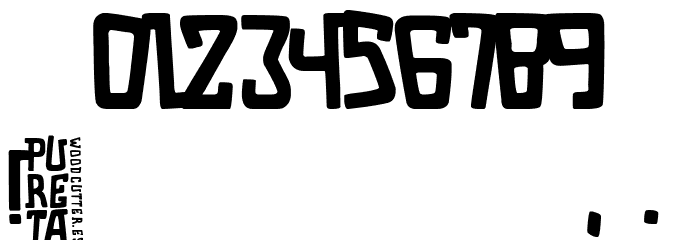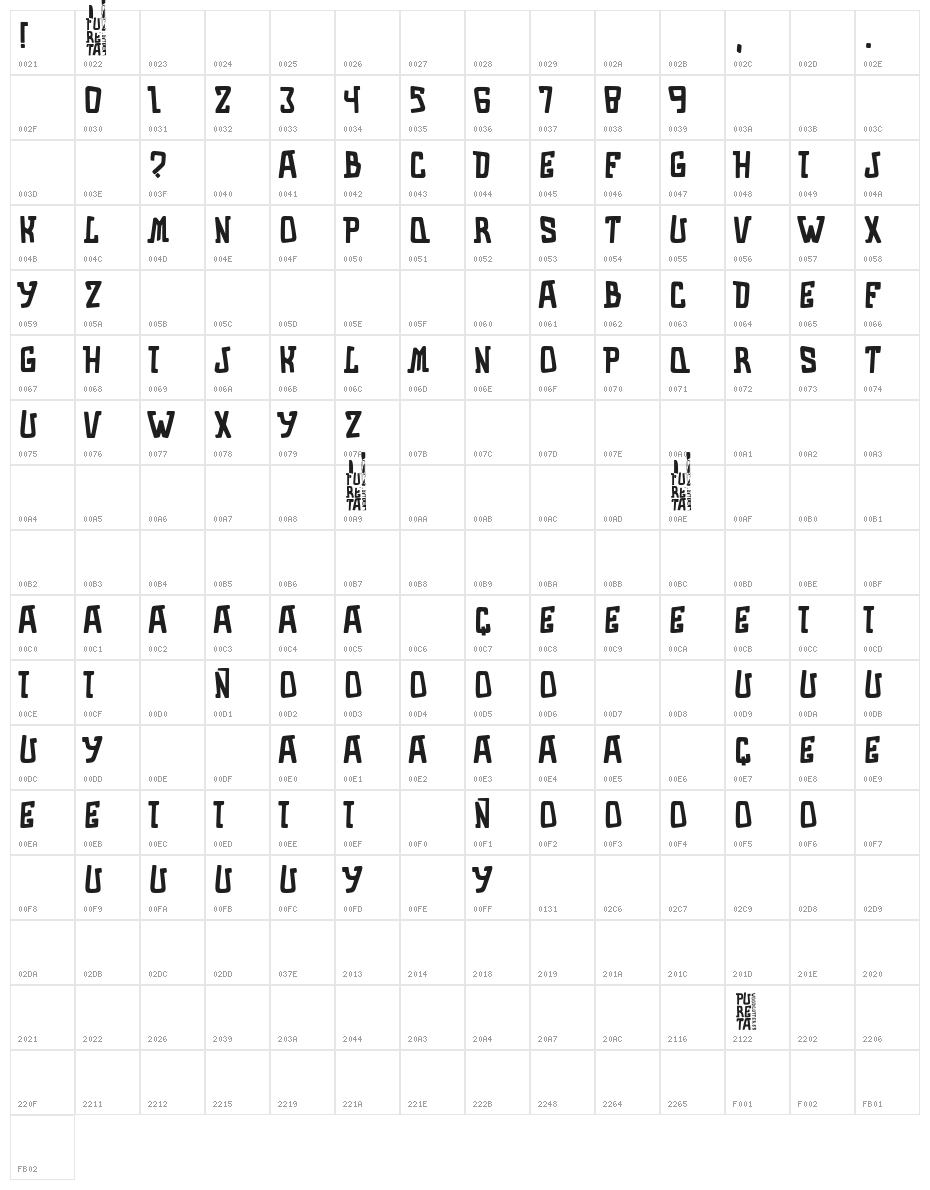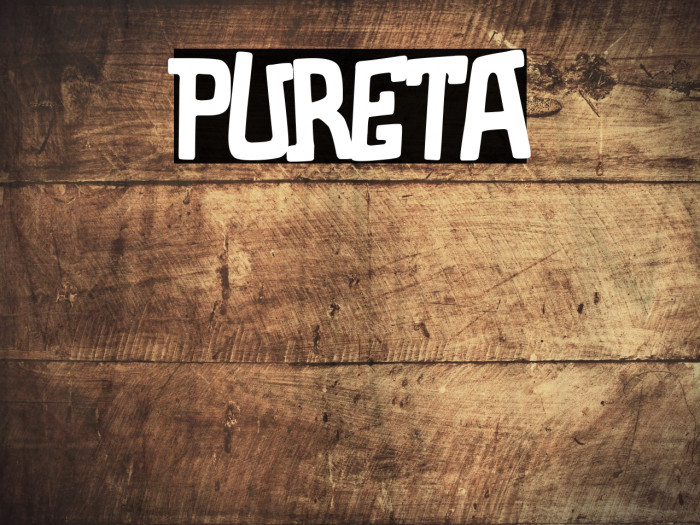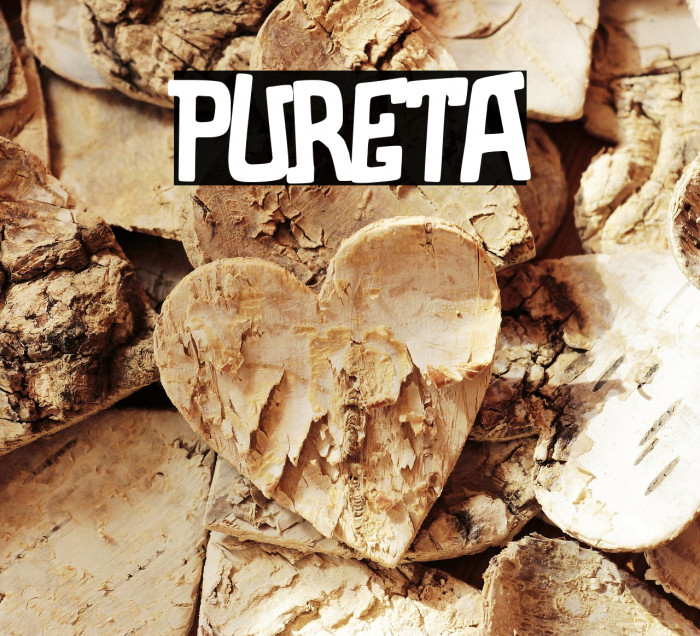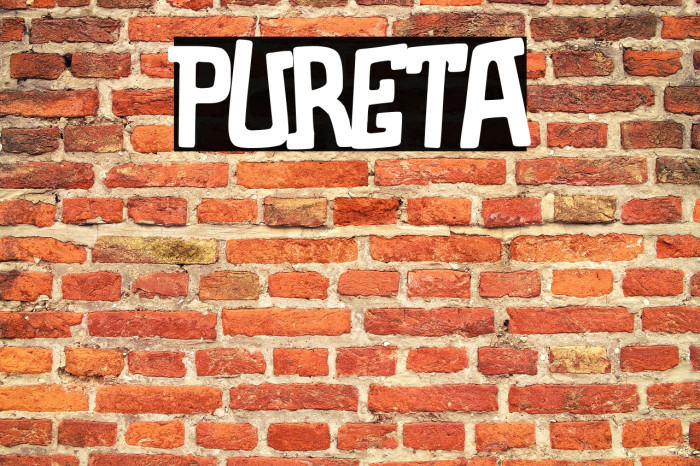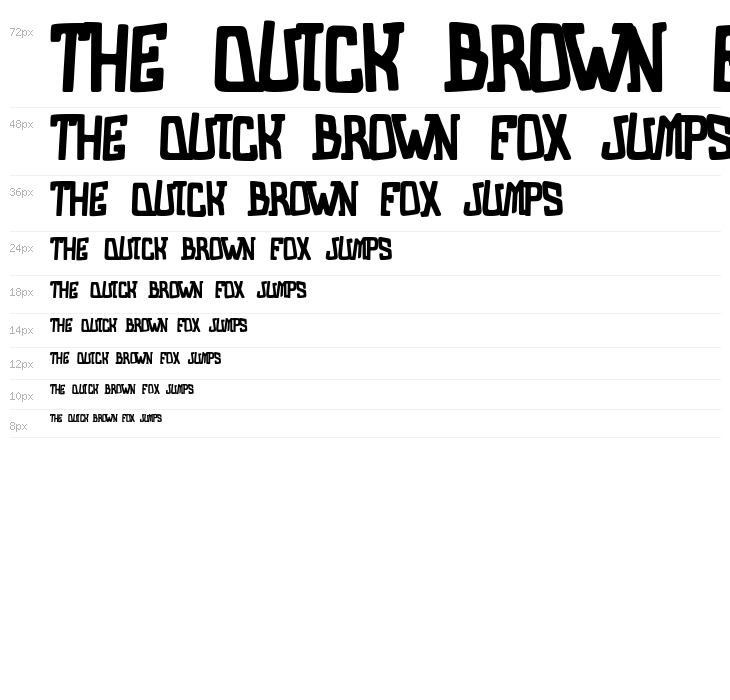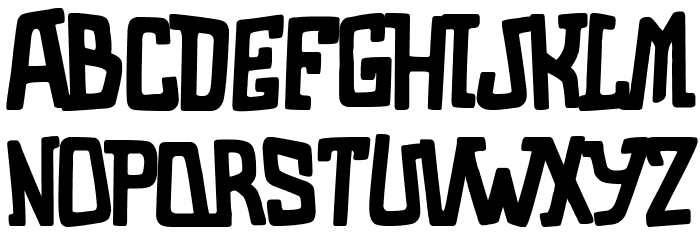
Pureta Font
Pureta Description
This font features a bold and playful design with a hand-drawn aesthetic. The characters are thick and slightly irregular, giving them a casual and approachable feel. The uppercase and lowercase letters maintain a consistent style, with rounded edges and a slight tilt that adds to the dynamic appearance. The numbers and special characters follow the same design principles, ensuring a cohesive look across all elements. This font is ideal for projects that require a fun and informal touch, such as children's books, posters, or creative branding materials.
| Overall Style | Playful, Casual |
| Proposed Projects | Ideal for children's books, posters, creative branding, and informal designs. |